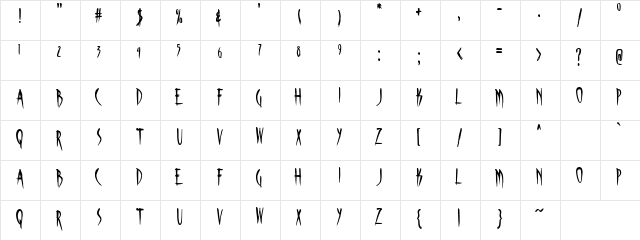
Go 2 Hell Regular
Design Context for Go 2 Hell Typeface
Go 2 Hell is a composed and adaptable typeface that performs quietly and consistently across a wide range of design contexts.